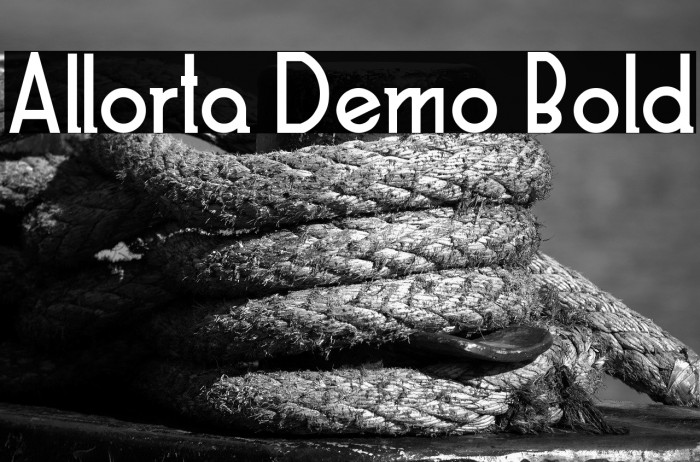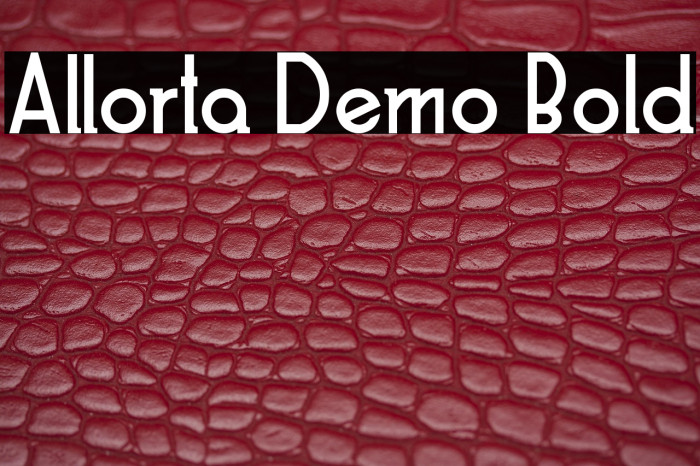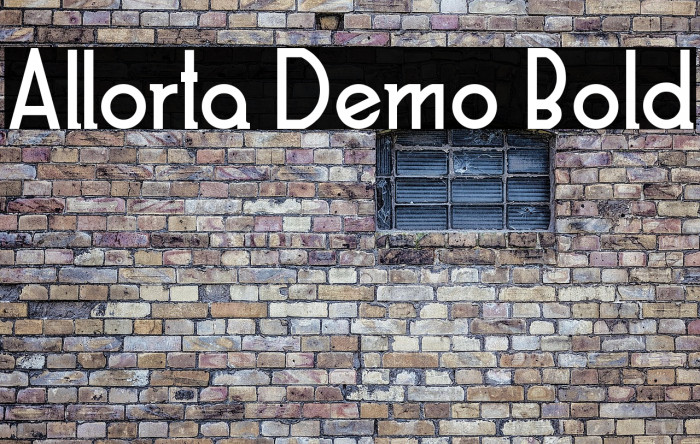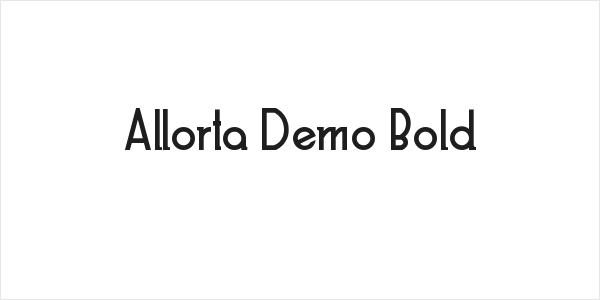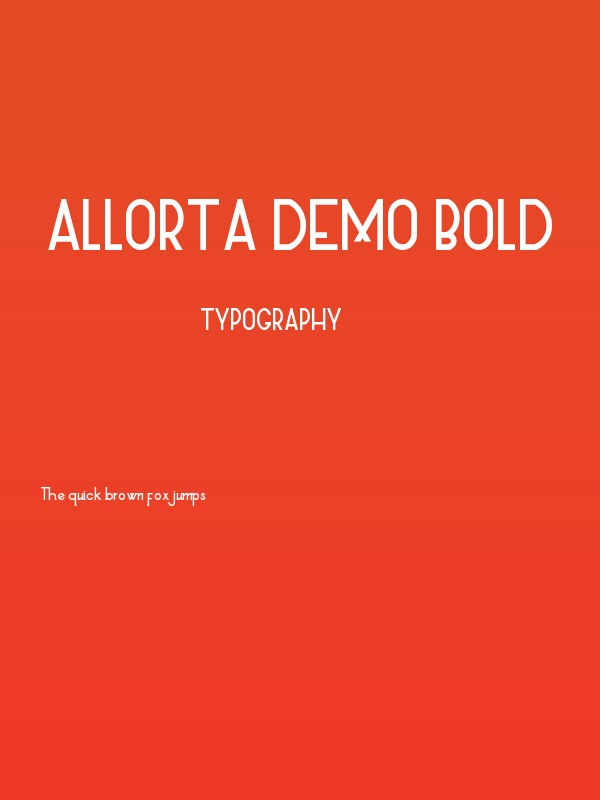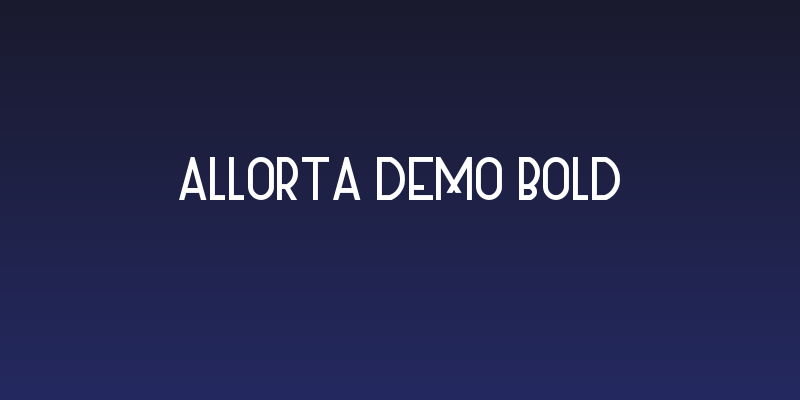
Allorta Demo Bold Font
Allorta Demo Bold Description
This font features a bold and playful design with a unique blend of modern and vintage elements. The characters are crafted with a strong presence, showcasing thick strokes and a slightly condensed form. The uppercase letters exhibit a geometric style with clean lines, while the lowercase letters introduce a touch of whimsy with subtle curves and distinctive shapes. The font maintains a consistent weight throughout, ensuring readability and impact. Special characters are integrated seamlessly, adding to the font's versatility. Its bold nature makes it suitable for attention-grabbing headlines and creative projects.